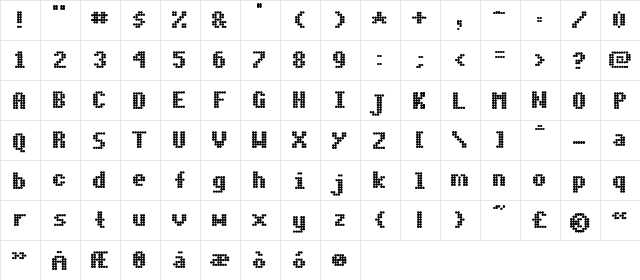
Dot Matrix Bold
Design Context for Dot Matrix Typeface
Dot Matrix is rooted in pixel-grid construction, making it a natural fit for game UI, retro computing aesthetics, and digital nostalgia projects.
A natural choice for retro game titles, chiptune music branding, 8-bit UI, and digital nostalgia projects.
Pro Tip: Pair Dot Matrix with flat colour palettes and simple geometric UI elements to reinforce its digital aesthetic.